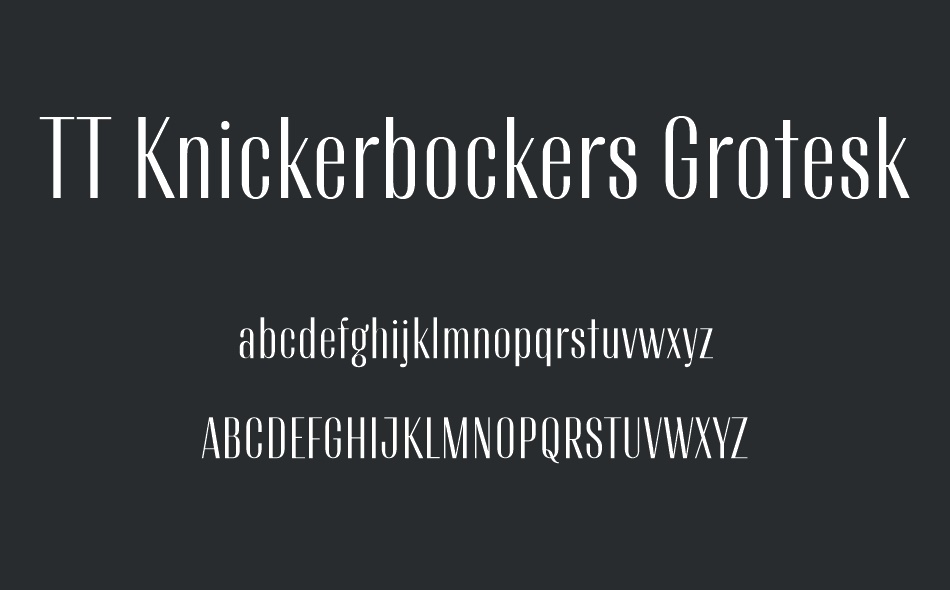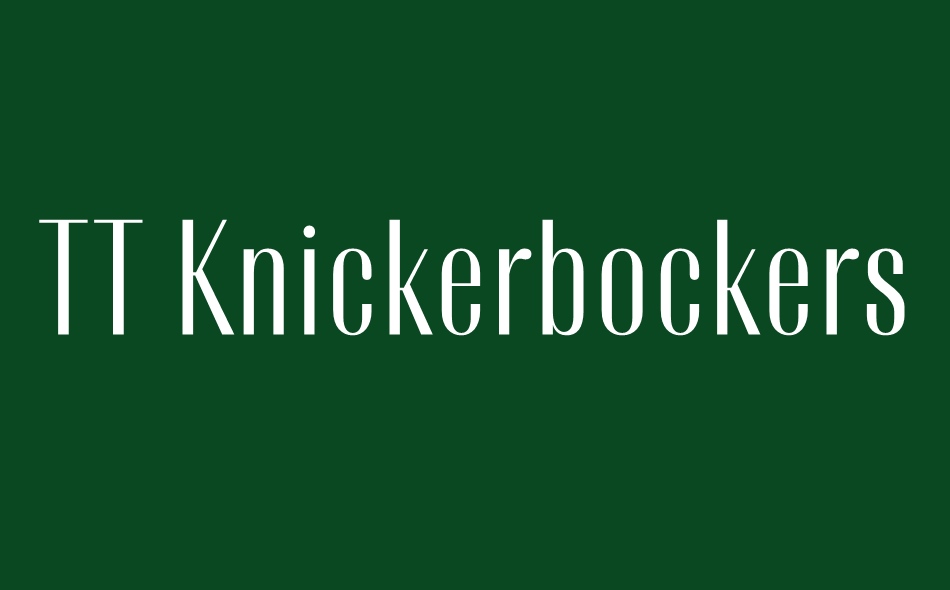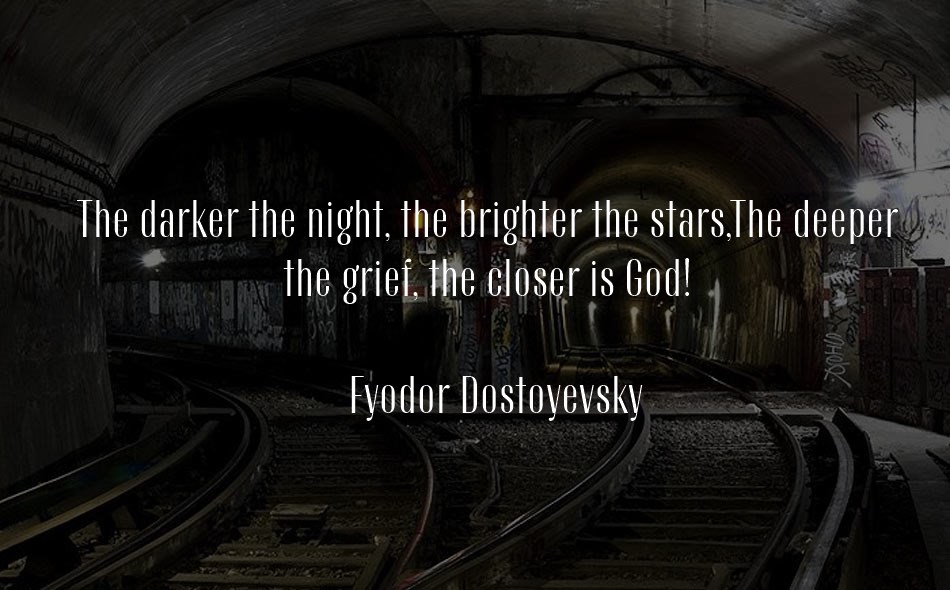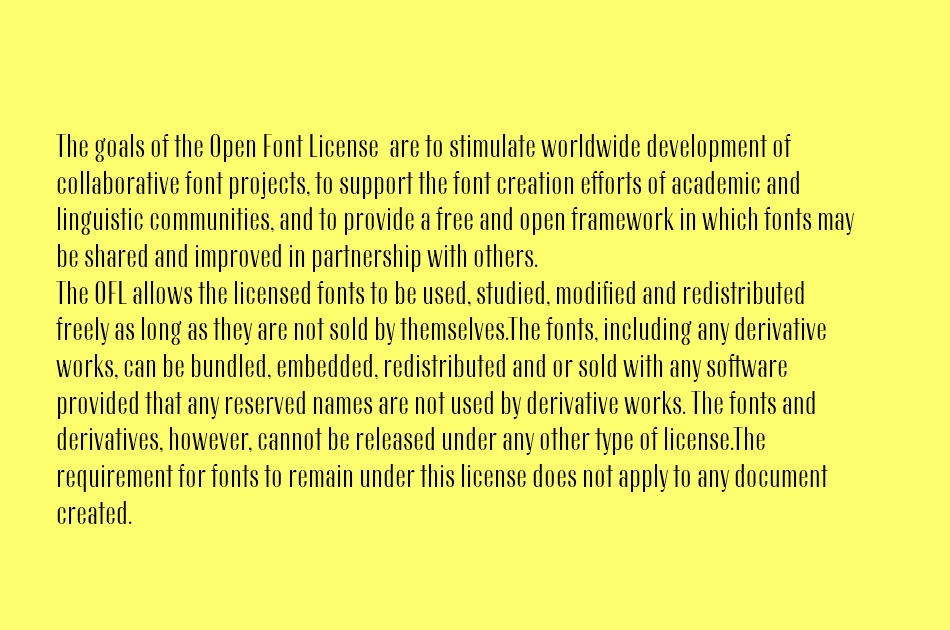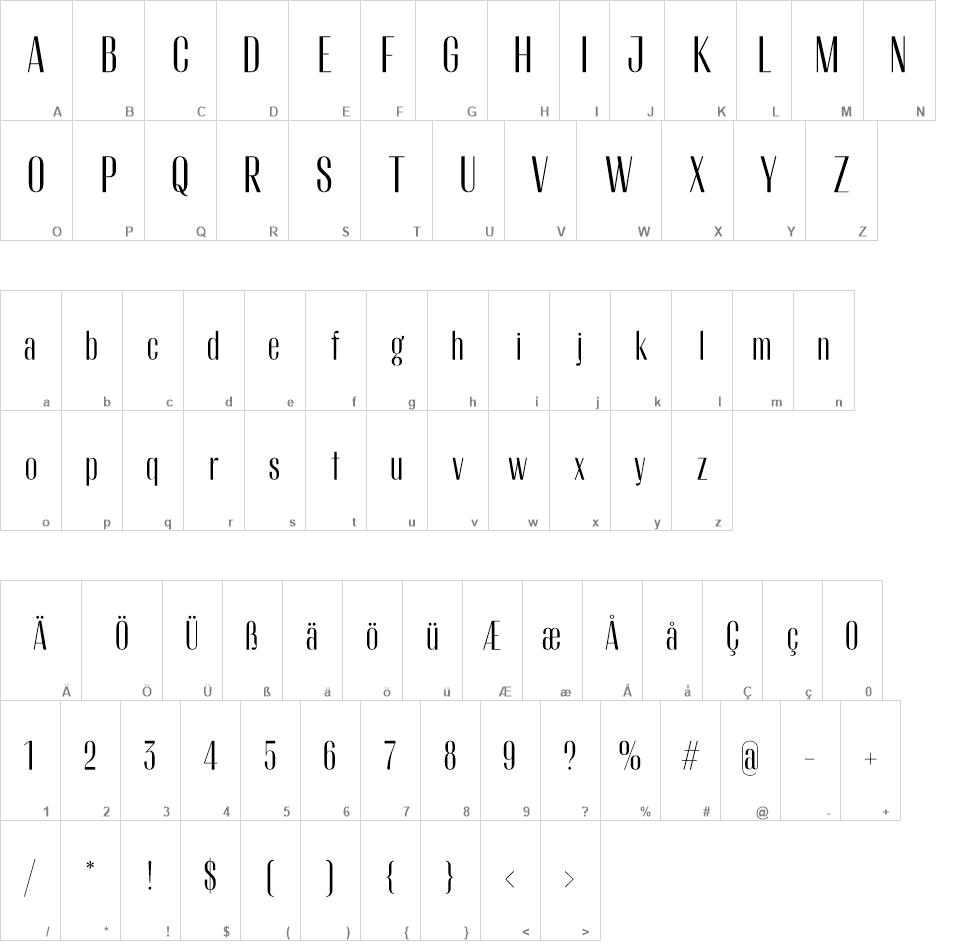
TT Knickerbockers Grotesk font
TT Knickerbockers Font Family Type Specimen
Design TypeType
About TT Knickerbockers
TT Knickerbockers is a contrasting pair
of fonts that continues our project series
dedicated to different cities. The new project
is dedicated to New York with its multicultur-
alism, creativity, energy, and to its inhabi-
tants. TT Knickerbockers Grotesk symbolizes
the monumentality of New York expressed in
both its traditional historic architecture and
skyscrapers. Energy, constant movement and
the round-the-clock life of New York — all this
is reflected in our TT Knickerbockers Script.
TT Knickerbockers Script is a bright and at
the same time a little restrained brushpen
script with a slight touch of aristocracy. It
consists
of 967 characters and also contains a huge
number of contextual alternatives and liga-
tures. For all lowercase and uppercase letters
of basic Latin and Cyrillic alphabets we have
drawn 236 swashes which, depending on the
context, can appear both at the beginning
the opportunities that the typeface provides.
TT Knickerbockers Grotesk is a narrow con-
trast sans-serif with characteristic elements
sending us back to the 19th century. There's
also a reference to antiqua fonts to be
noticed in the font: where in traditional
antiqua there would be serifs, TT Knicker-
bockers Grotesk features a straight stroke
ending, and traditi- onal drops (finals, tails
and ears) are substitu- ted with rounded
strokes. In grotesk you will find unusual
characters, stylistic alternatives and
ligatures.
Styles
TT Knickerbockers includes 2 typefaces:
elegant Script with a lot of OpenType
feautures and contrast narrow Grotesk.
TT Knickerbockers Grotesk
TT Knickerbockers Script